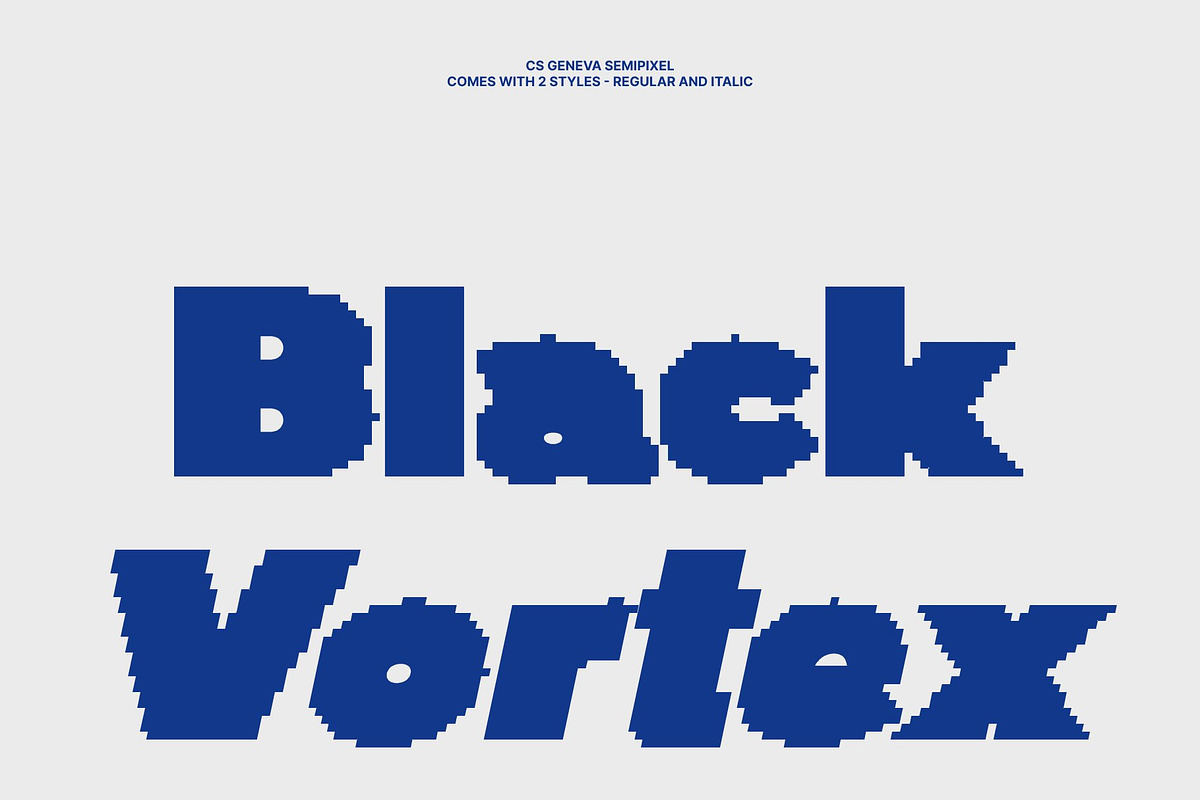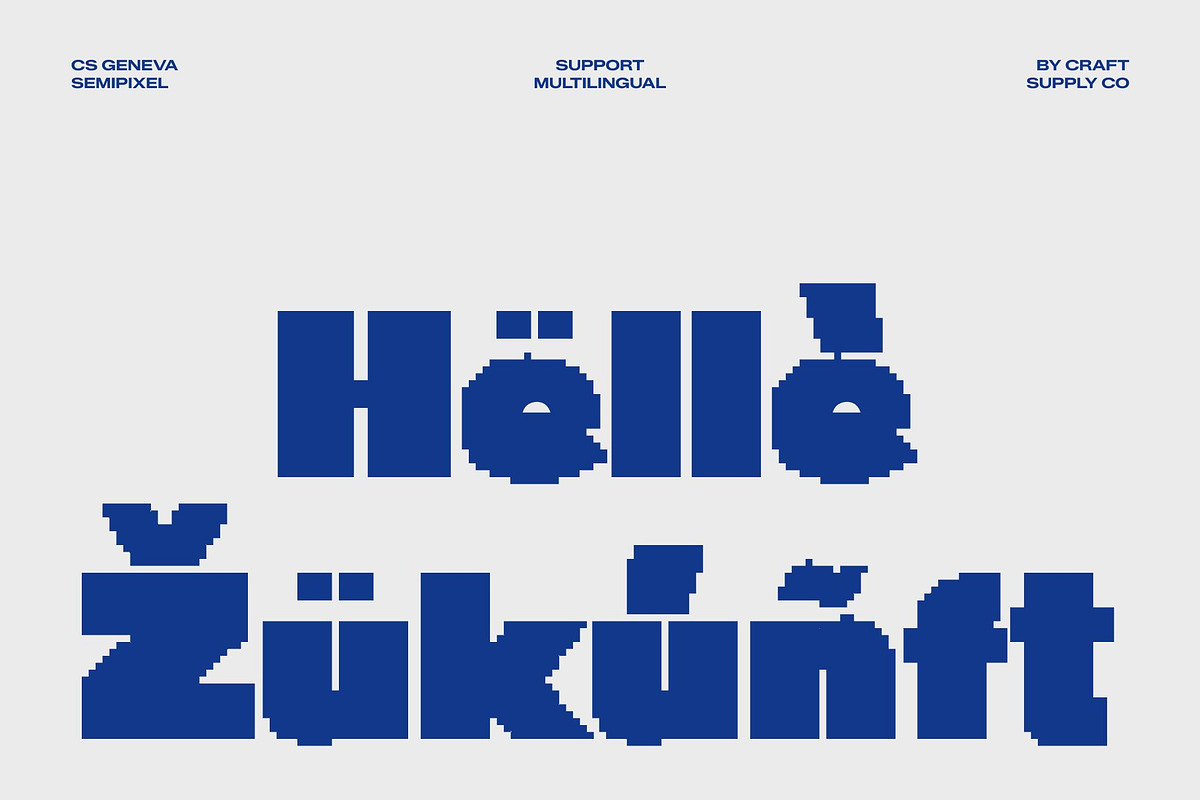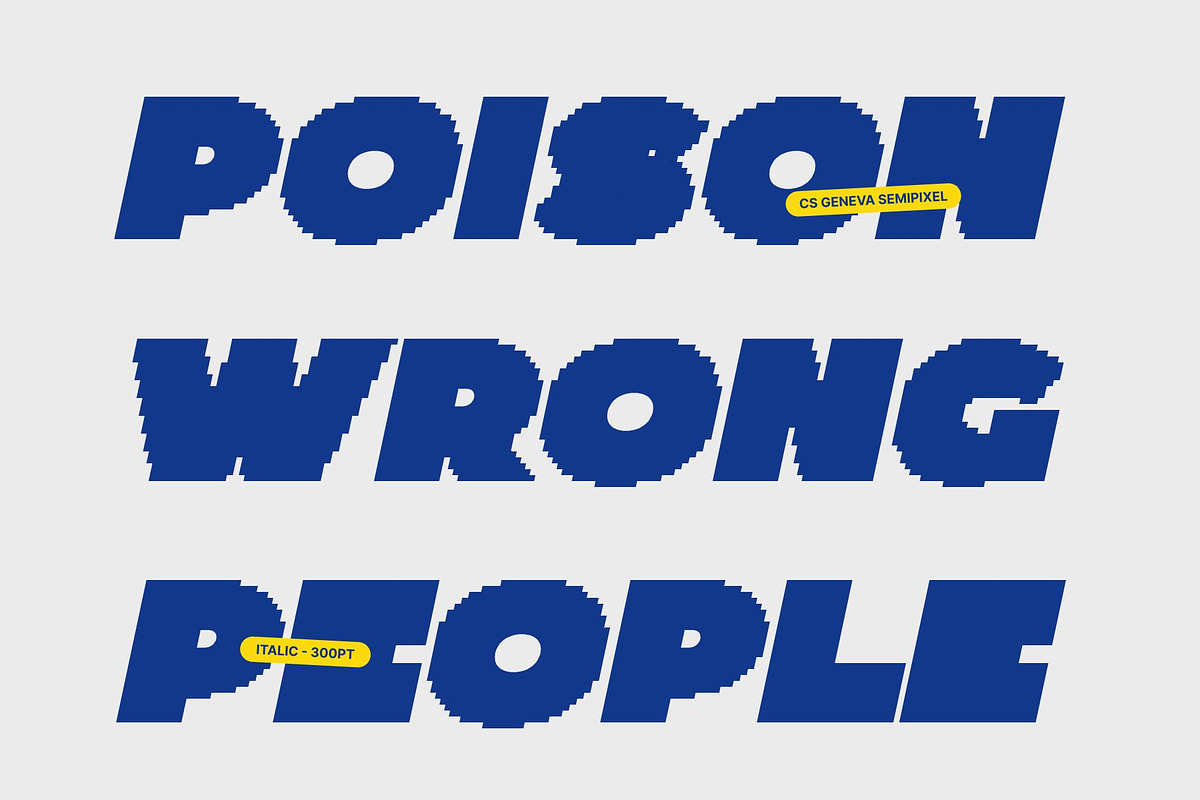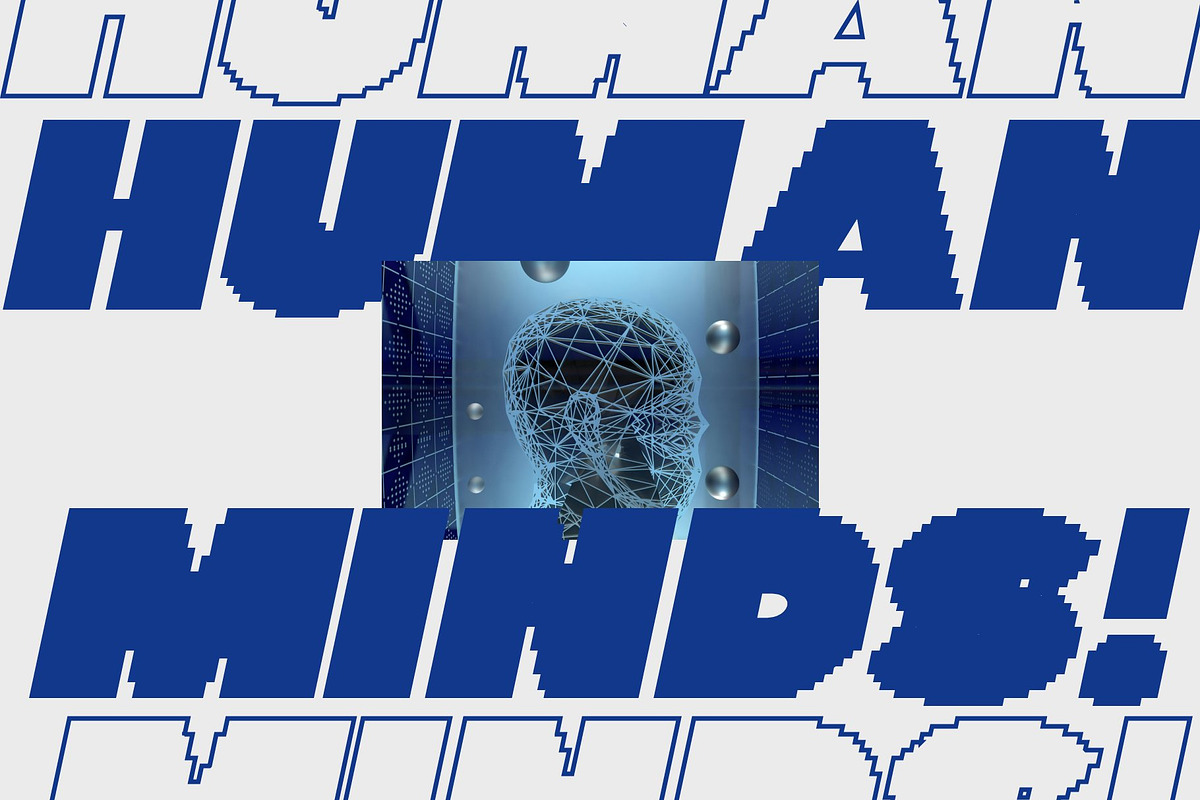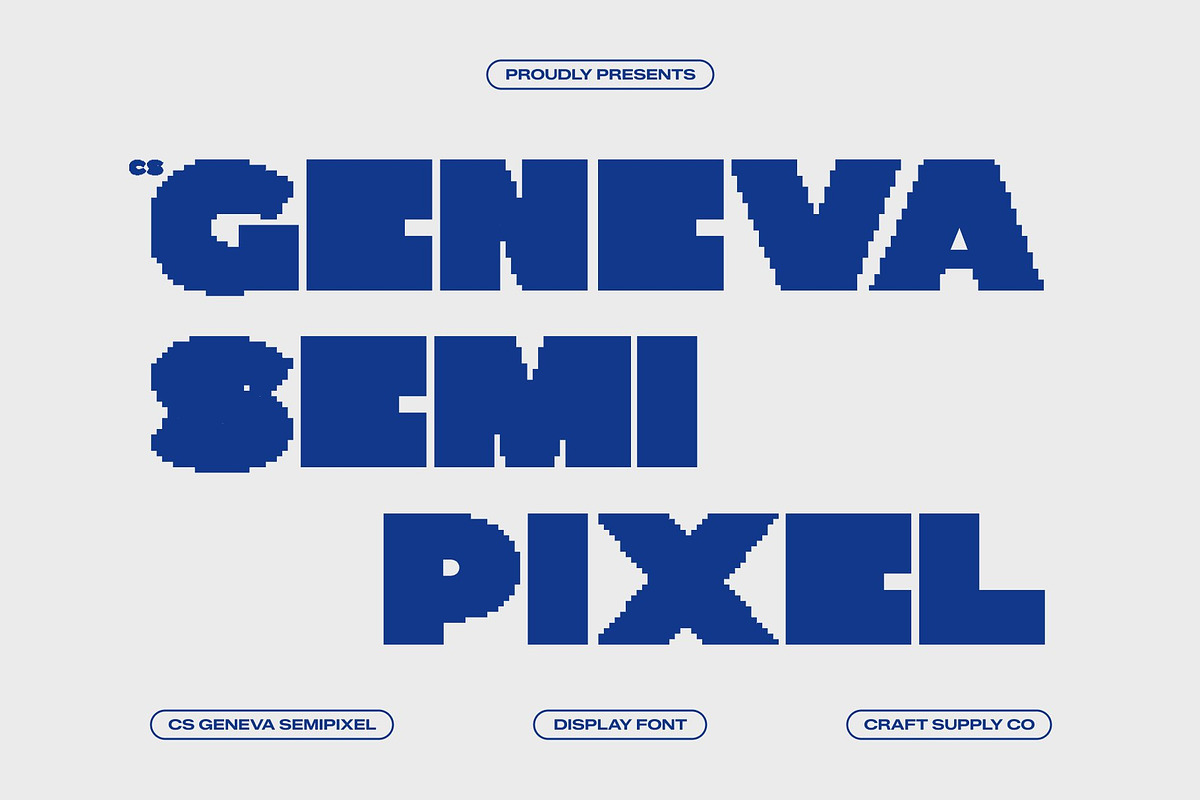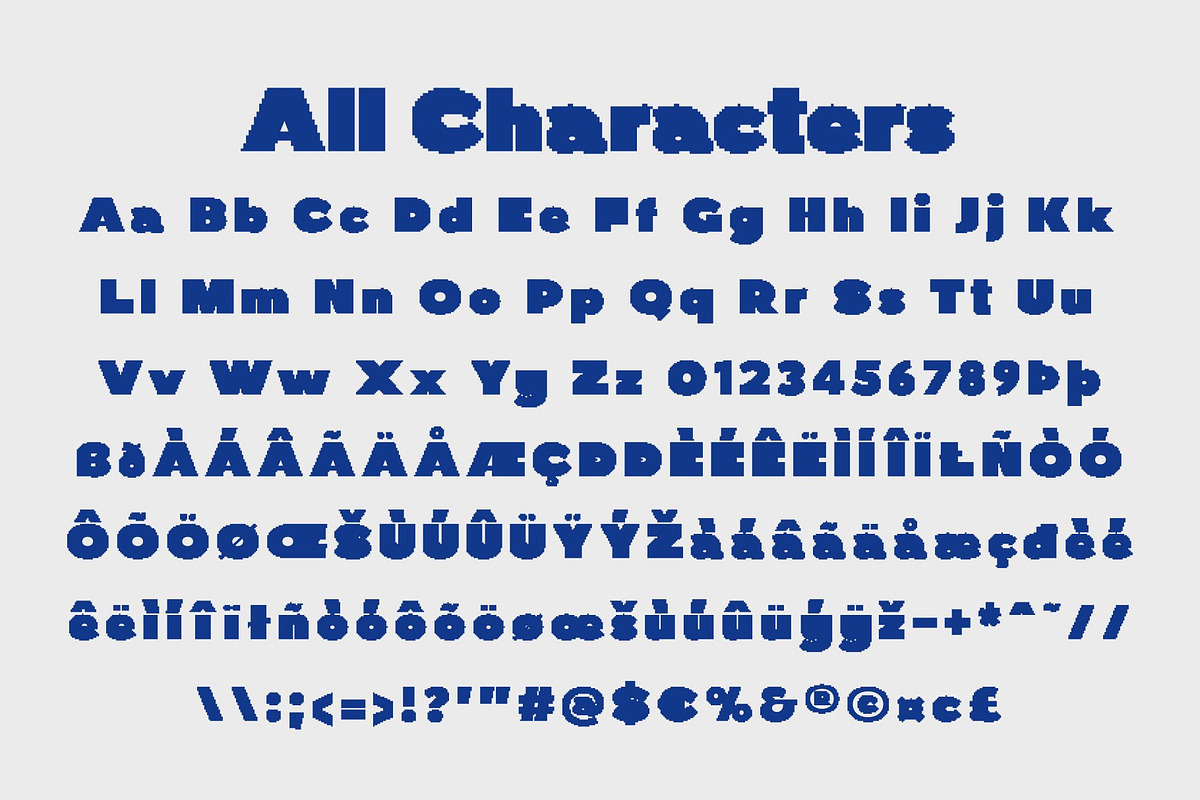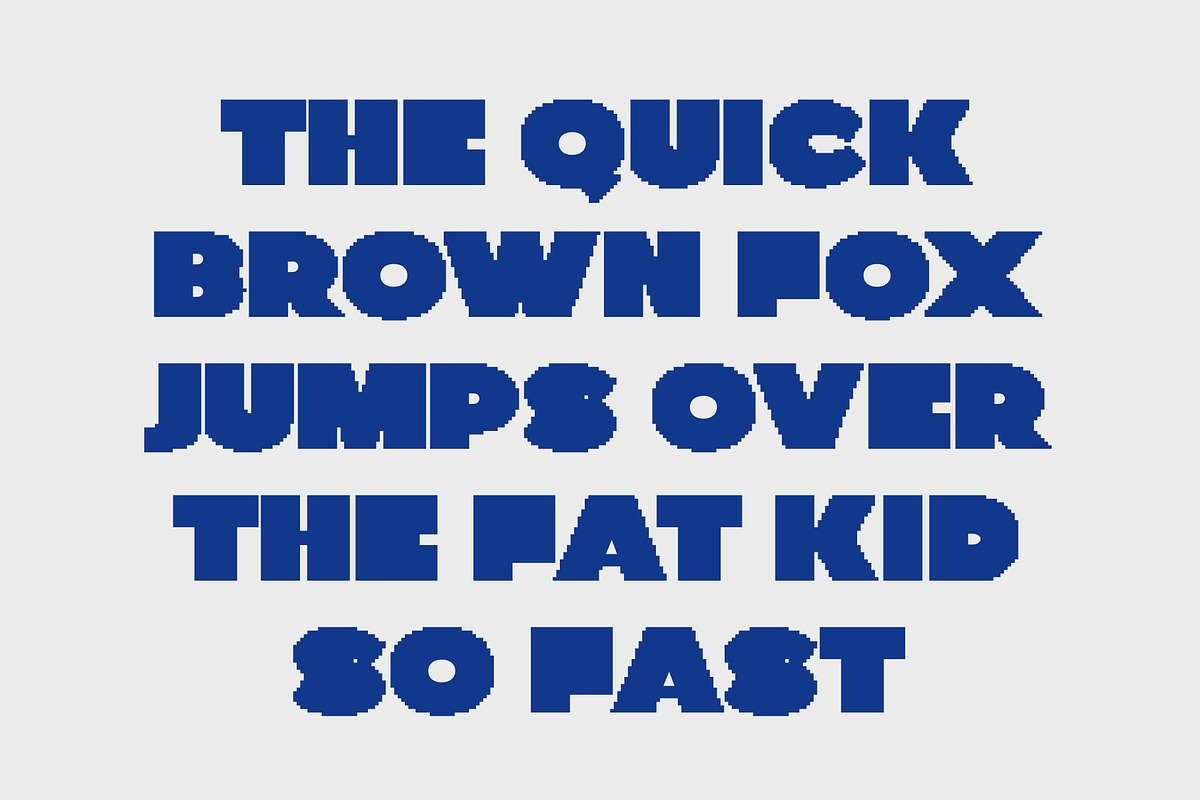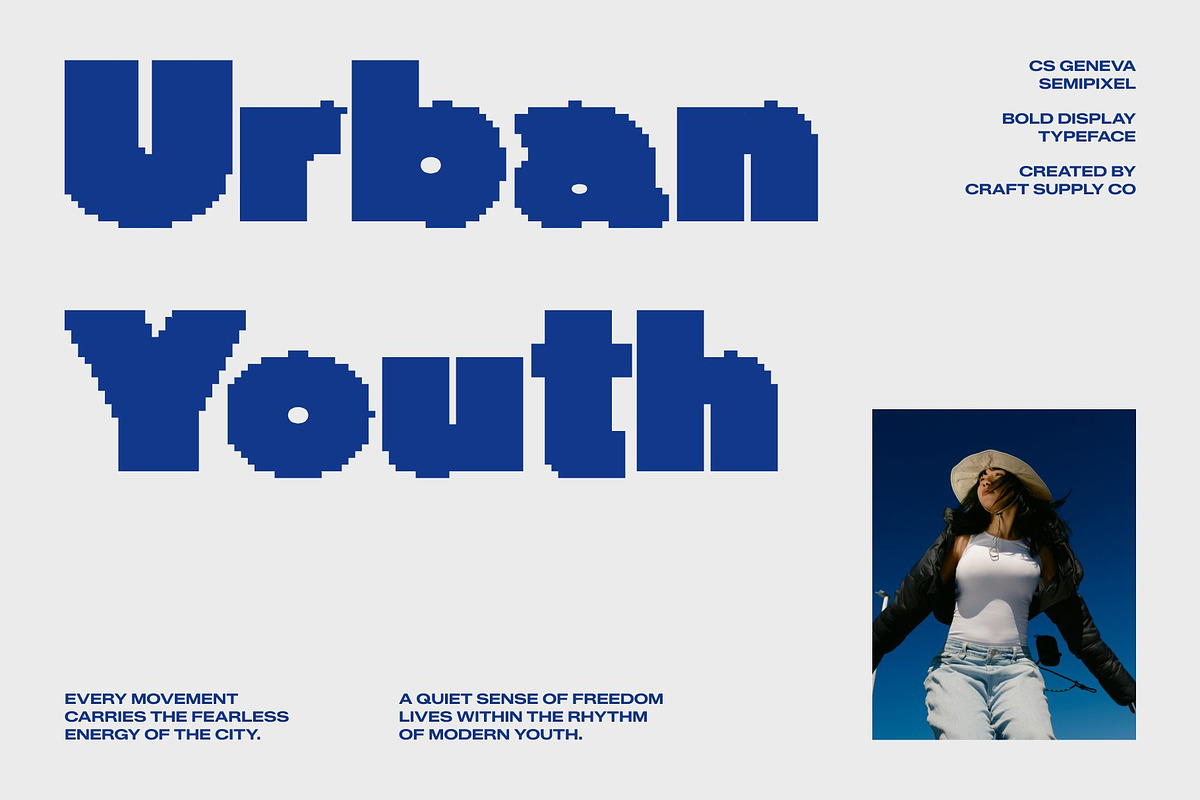
CS Geneva Semipixel
CS Geneva Semipixel – Bold Display Sans Serif Font: Where Retro Pixels Meet Futuristic Energy
Strong Modern Forms with Smooth Digital Character This is a bold display sans serif font designed to command attention through striking modern shapes and a refined semipixel aesthetic. Combining pixel-inspired square structures with smooth curves and contemporary detailing, the font avoids the rigid appearance of classic pixel typography while maintaining a strong retro-digital identity. The result is a typeface that feels futuristic, energetic, and visually intentional.
Semipixel Design with Sleek Retro-Futurism This font introduces softened edges and balanced curves that create a smoother and more sophisticated appearance. This blend of geometric precision and modern fluidity gives the font a polished digital atmosphere perfect for contemporary futuristic design.
Bold Presence with Cyberpunk Energy This font delivers a typographic identity filled with technological power and retro-futuristic attitude. Its strong proportions and digital-inspired forms create a dynamic visual rhythm ideal for projects that seek a high-tech, cyberpunk, or gaming-inspired aesthetic.
Perfect for Cyberpunk Branding, Games, and Merchandise This font perfect for cyberpunk and retro-futurism branding, game titles, logos, merchandise, tech posters, streaming visuals, and futuristic promotional campaigns. Its bold semipixel forms make it ideal for apparel graphics, esports branding, digital interfaces, and creative visual identities that demand a strong and modern presence.
CS Geneva Semipixel Regular
CS Geneva Semipixel Italic